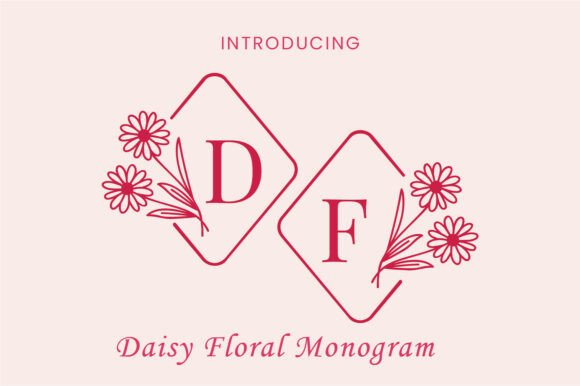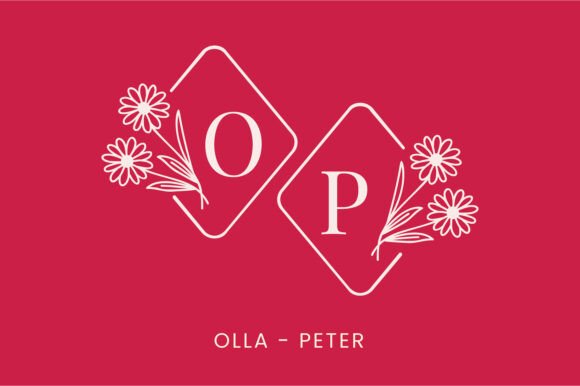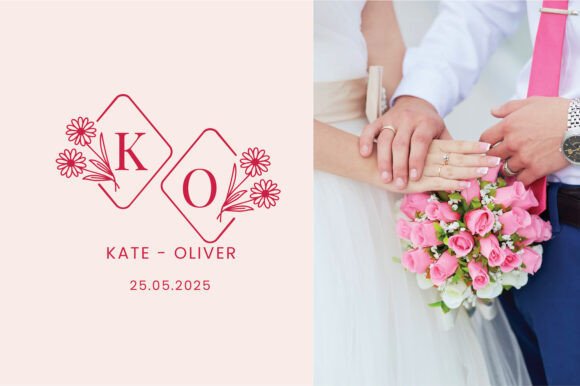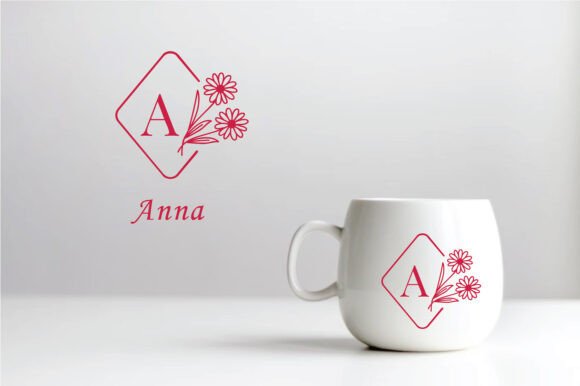
Daisy Floral Monogram Font
About the Daisy Floral Monogram Font
The wait is over! The incredible Daisy Floral Monogram Font is now available for your design toolkit. Bring a touch of charm and elegance to your creative projects with Daisy Floral Monogram. This decorative uppercase font features delicate daisy flower accents embedded within each letter, perfect for spring-inspired designs, wedding stationery, personalized gifts, logo designs, and more. Each letter is thoughtfully crafted to evoke freshness, joy, and a gentle natural vibe—ideal for designers looking to add a floral flair to their work.
Daisy Floral Monogram’s delicate nature makes it ideal for headlines, short text blocks on invitations or packaging, and logos requiring a touch of elegance. It excels in branding for businesses related to floristry, weddings, or artisan crafts. However, its decorative elements make it unsuitable for body text or UI elements where readability is paramount. Avoid using it in long paragraphs or situations requiring small point sizes.
This font’s inherent charm pairs well with clean sans-serif fonts like Helvetica or Open Sans for a balanced contrast. For a more playful feel, consider pairing it with a script font such as Allura. A geometric sans-serif like Montserrat would offer a modern counterpoint, while a classic serif like Garamond could add a touch of timeless sophistication.
The overall personality of Daisy Floral Monogram is charming and elegant, conveying a sense of delicate femininity and springtime freshness. Its decorative style lends itself to projects requiring a romantic or whimsical aesthetic.
Daisy Floral Monogram Font Usage Examples
Daisy Floral Monogram Font Example